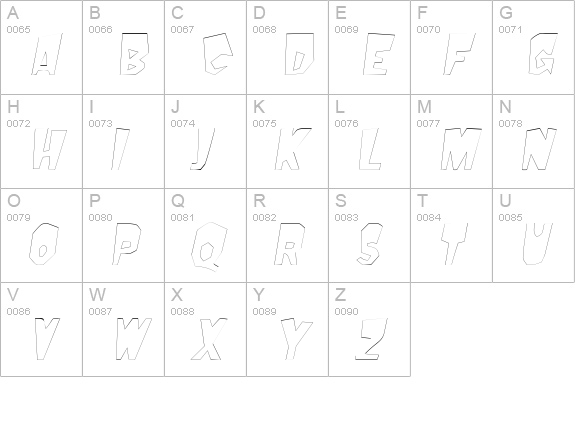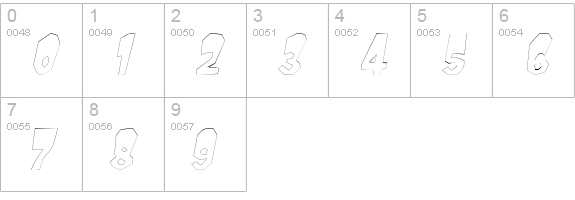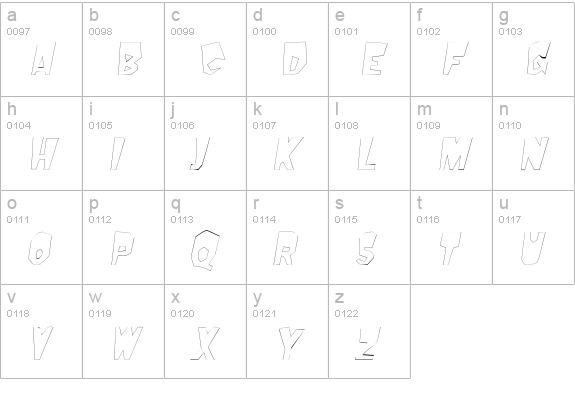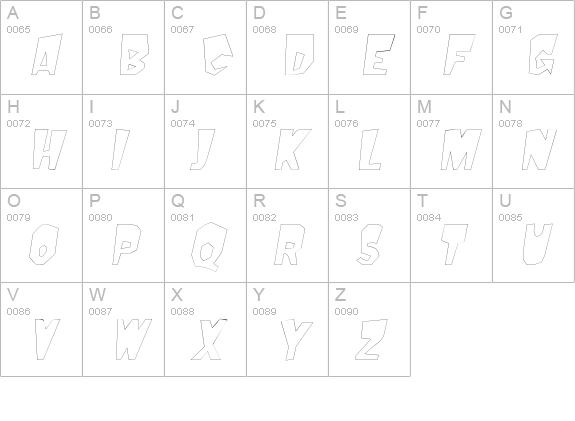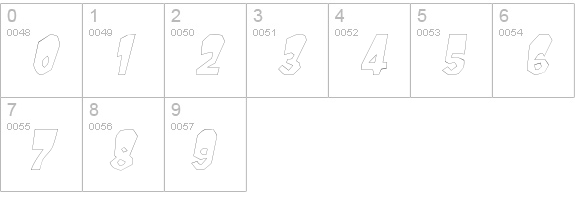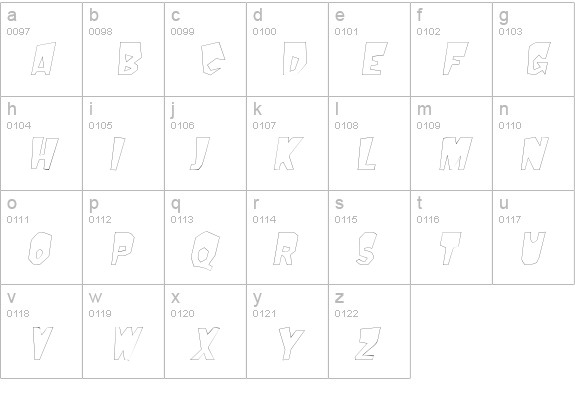
MondoOutline Oblique Font Details
MondoOutline Oblique is a distinctive, italic variant in the MondoOutline typeface family \xE2\x80\x94 well suited to design and typography projects.
MondoOutline Oblique is a sleek and modern font that adds a touch of sophistication to any design project. With its stylishly slanted characters and clean lines, this font is perfect for creating eye-catching headlines, logos, and branding materials. The unique oblique style gives a dynamic and energetic feel to your text, making it stand out from the crowd. What's even better is that MondoOutline Oblique is available for free download at FontsMarket.com. This means you can easily access this high-quality font without any cost, making it a valuable addition to your font library. Whether you're a designer, business owner, or hobbyist, MondoOutline Oblique is a versatile font that will elevate your projects to the next level. Don't miss out on this fantastic opportunity to enhance your designs with MondoOutline Oblique - download it for free today!